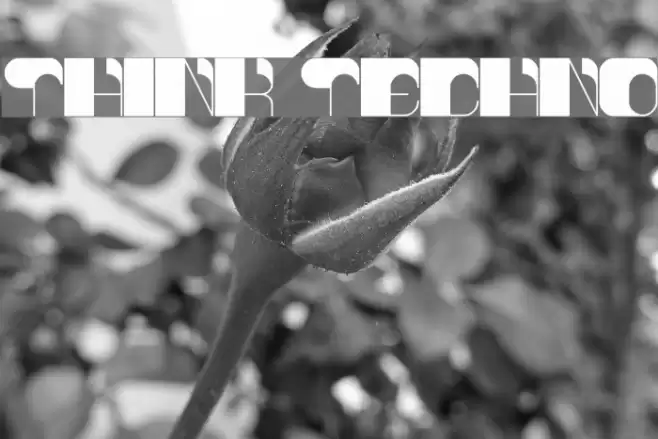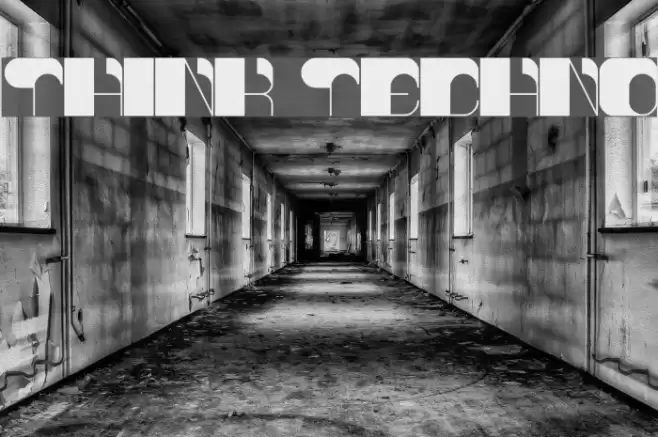
think techno Font
think techno Description
This font features a futuristic and geometric design, characterized by its bold and blocky letterforms. The characters are constructed with a combination of thick and thin strokes, creating a high contrast that enhances its modern appeal. The font has a distinct techno vibe, with angular shapes and a mechanical feel. The uppercase letters are particularly striking, with their solid, uniform appearance, while the lowercase letters maintain the same structural integrity. The numerals and special characters are designed to match the overall aesthetic, making this font a cohesive choice for tech-oriented projects.
A futuristic, geometric font with bold, high-contrast letterforms and a techno vibe from Uncategorized fonts.
- Proposed Projects: Ideal for technology branding, digital interfaces, video game titles, and sci-fi themed designs.